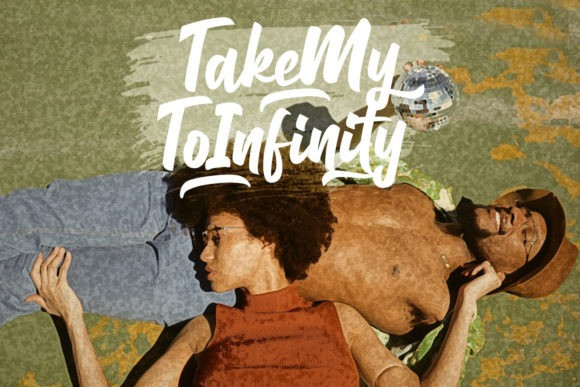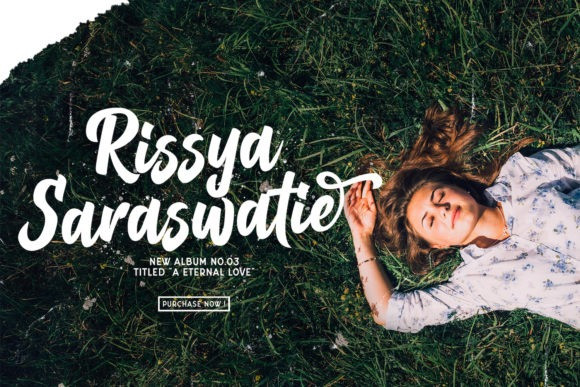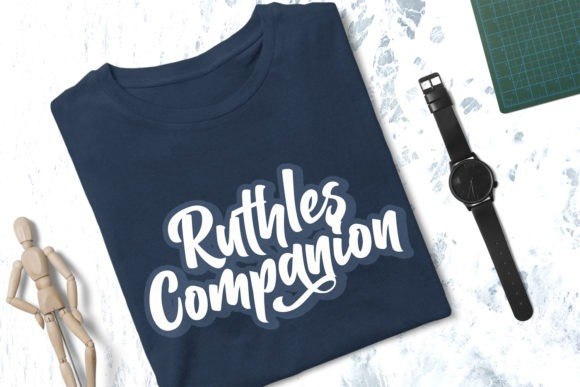
Introducing a new font called Balhgi Rizetons Brush – Handwritten Font inspired by urban fonts with sharp and beautiful letters that create fonts that are modern, trendy and elegant. Made from font designer named StringLabs. This typeface is a flowing handwritten font, described by an elegant touch, perfect for your favorite projects. Fall in love with its incredibly distinct and timeless style and use it to create spectacular designs! This font is PUA encoded which means you can access all of the glyphs and swashes with ease!